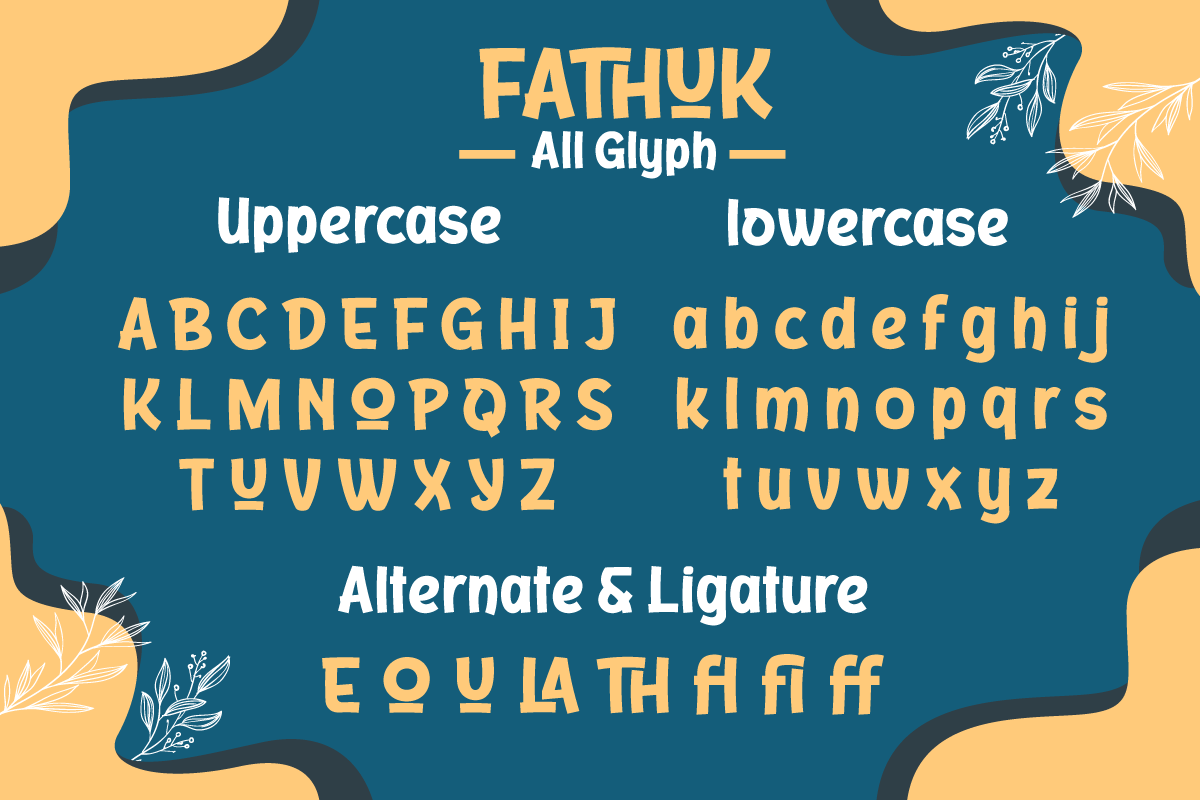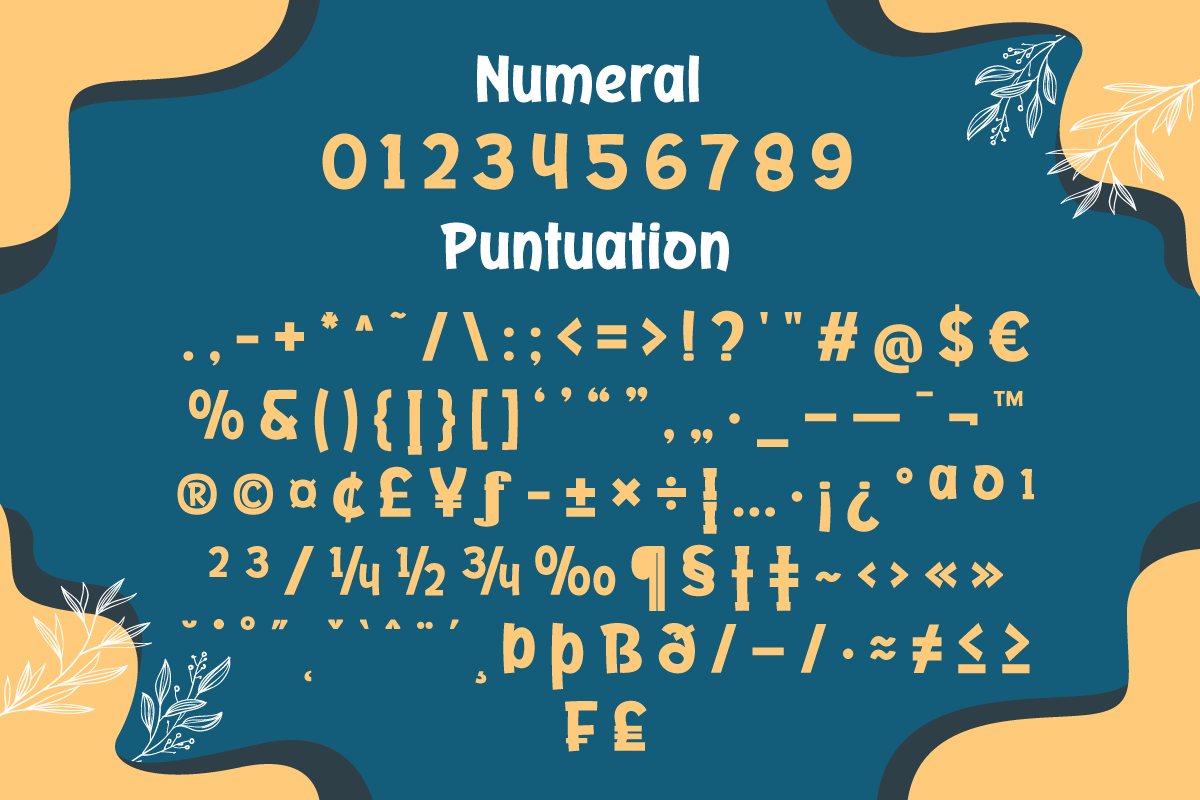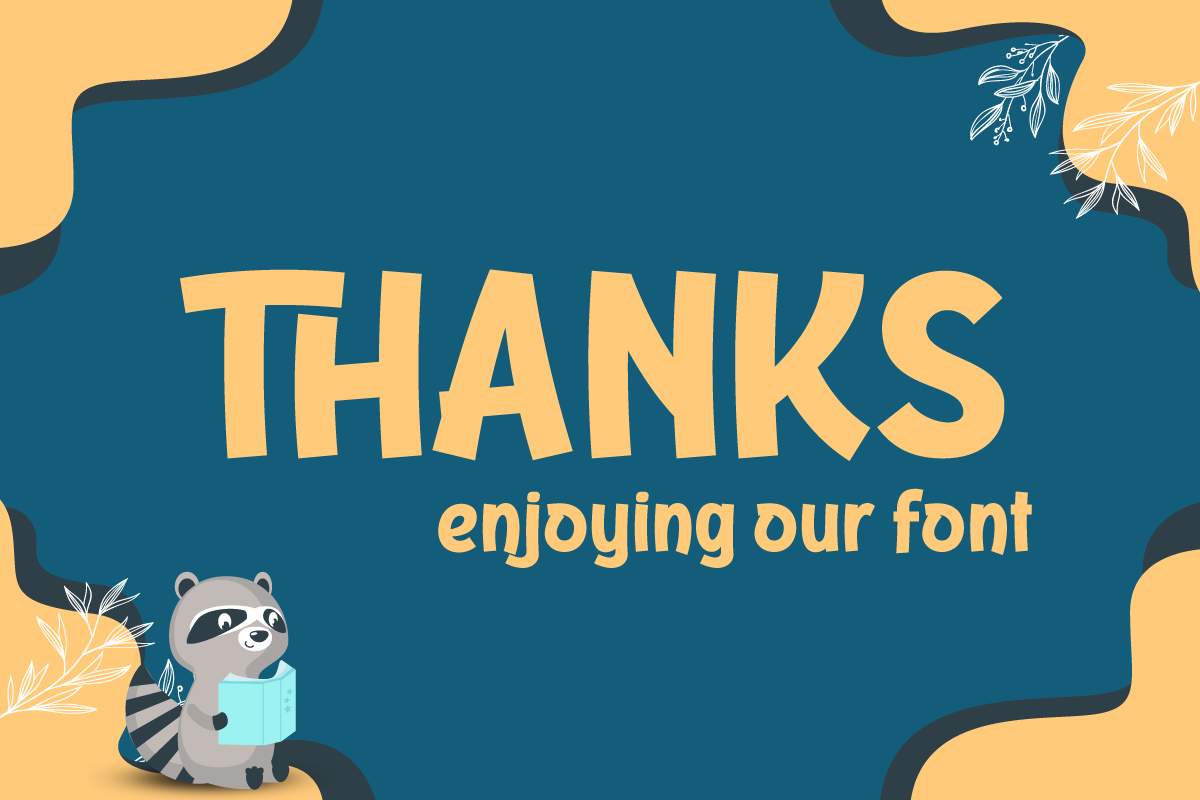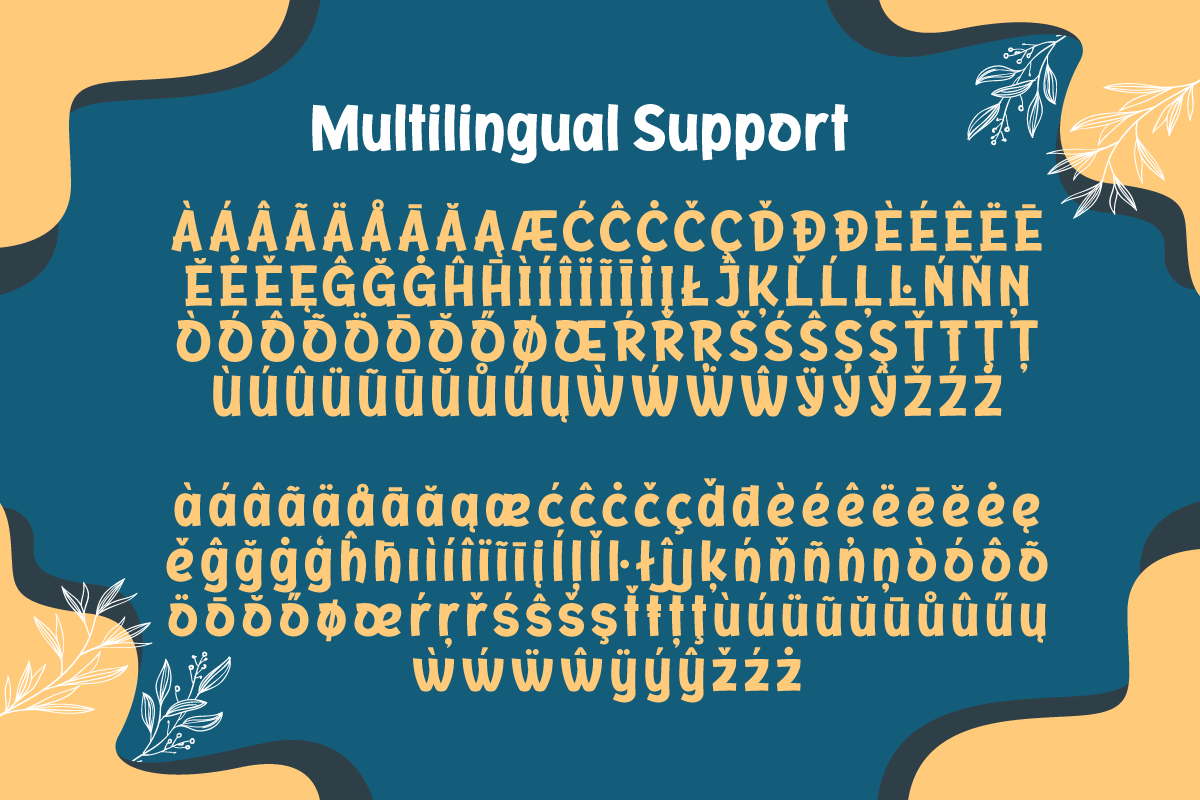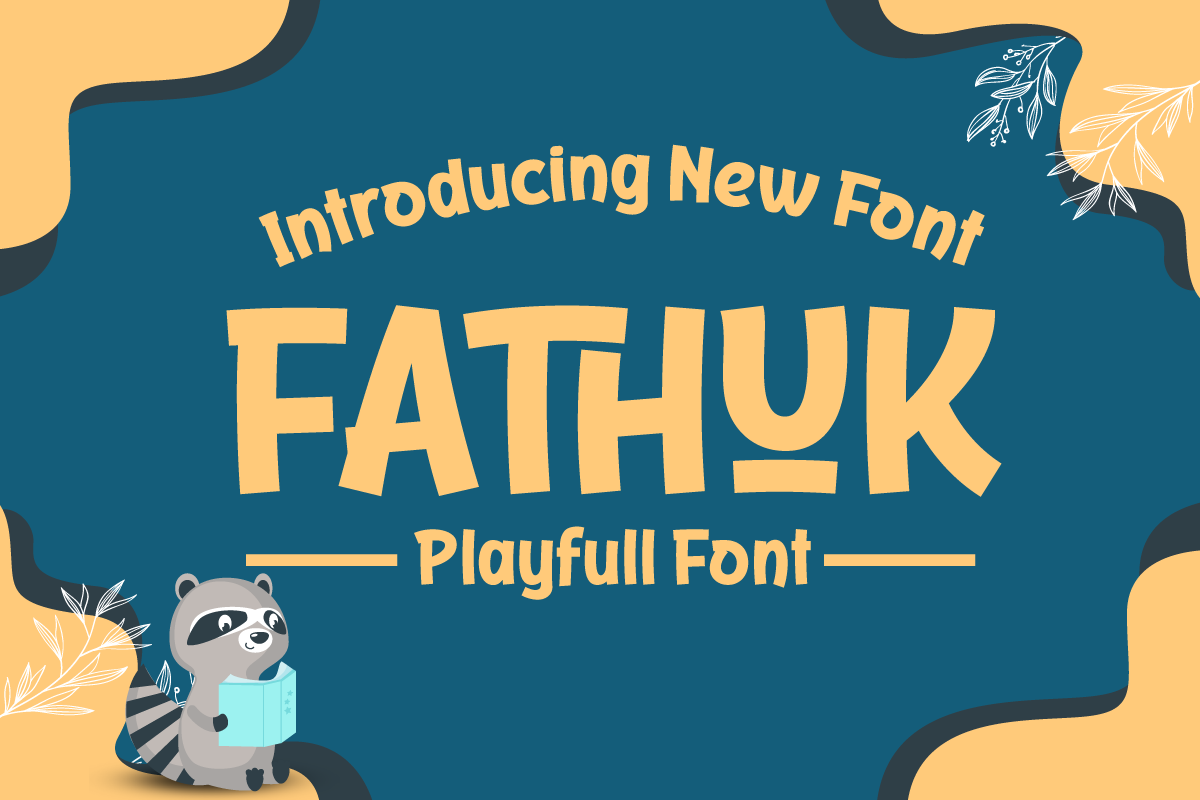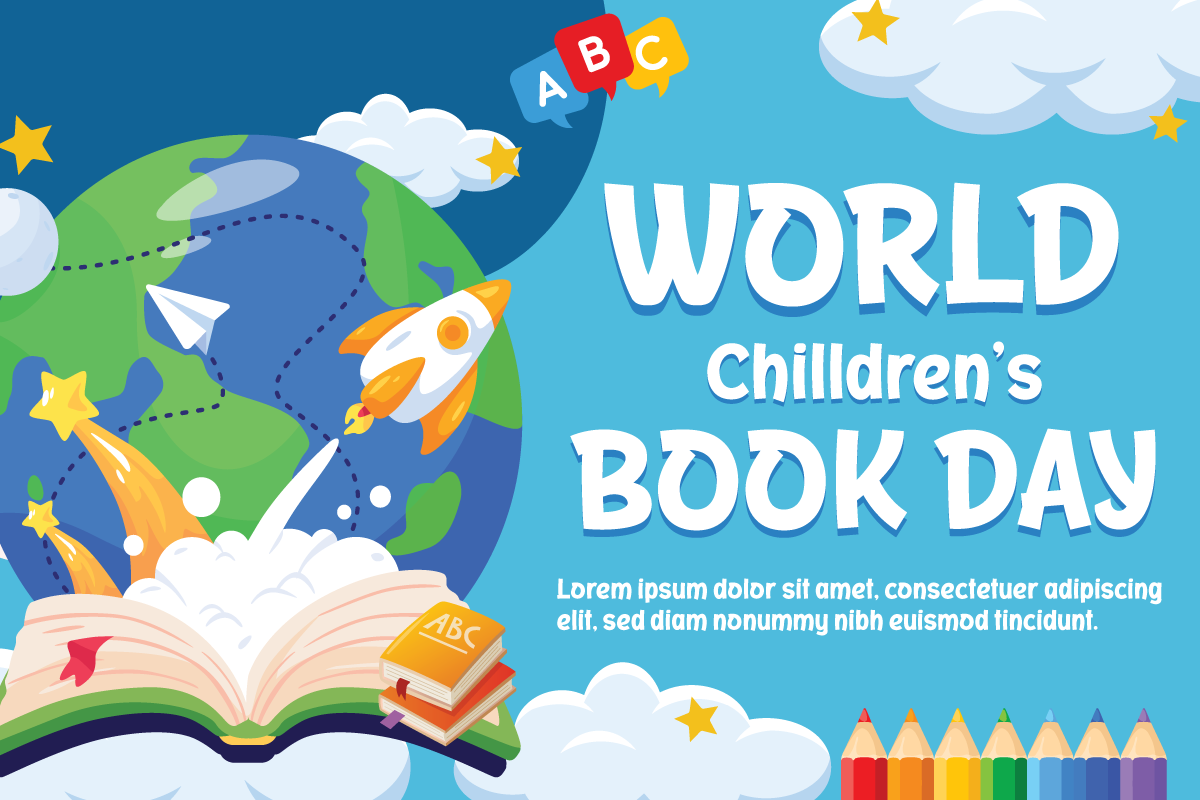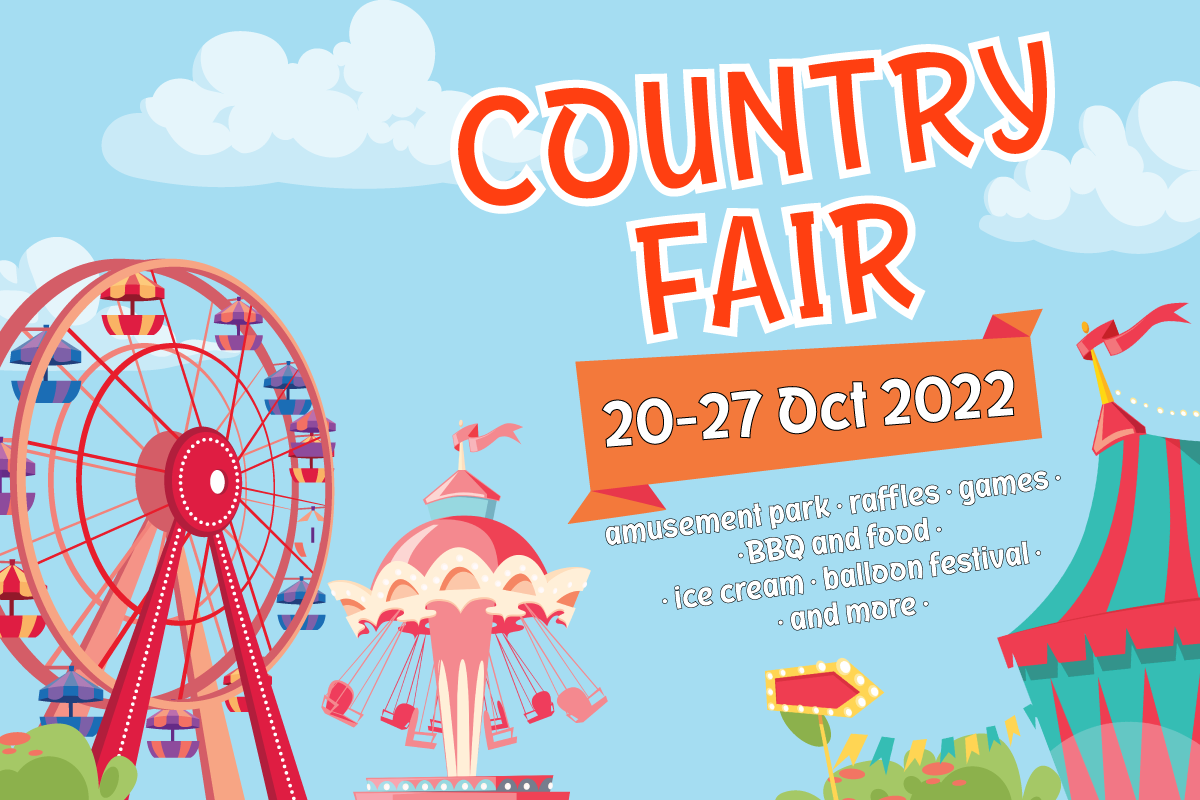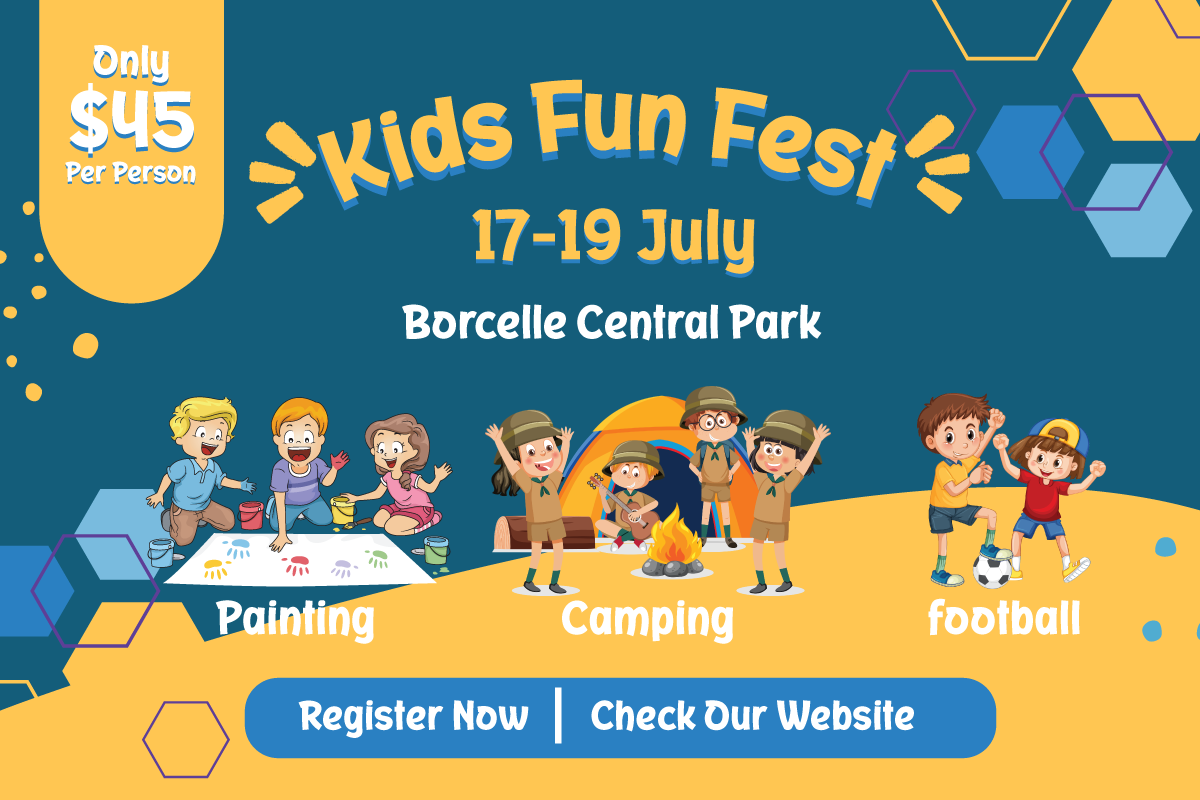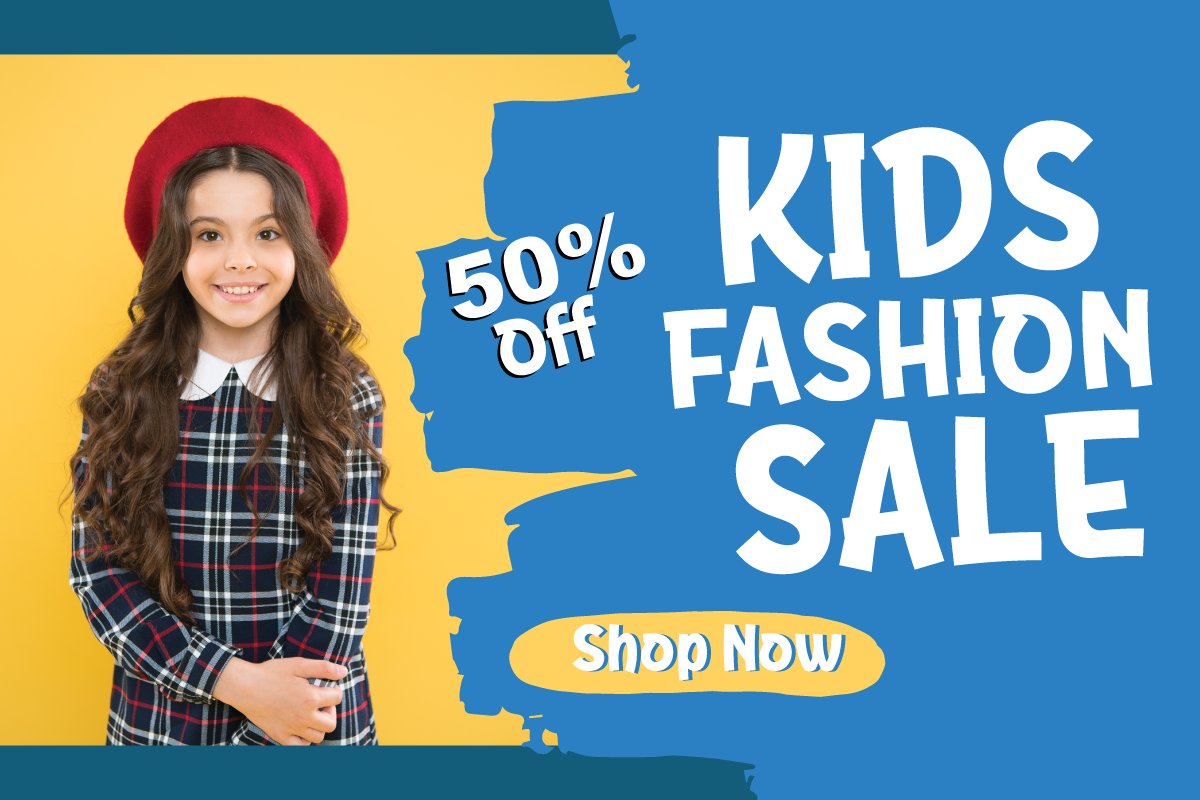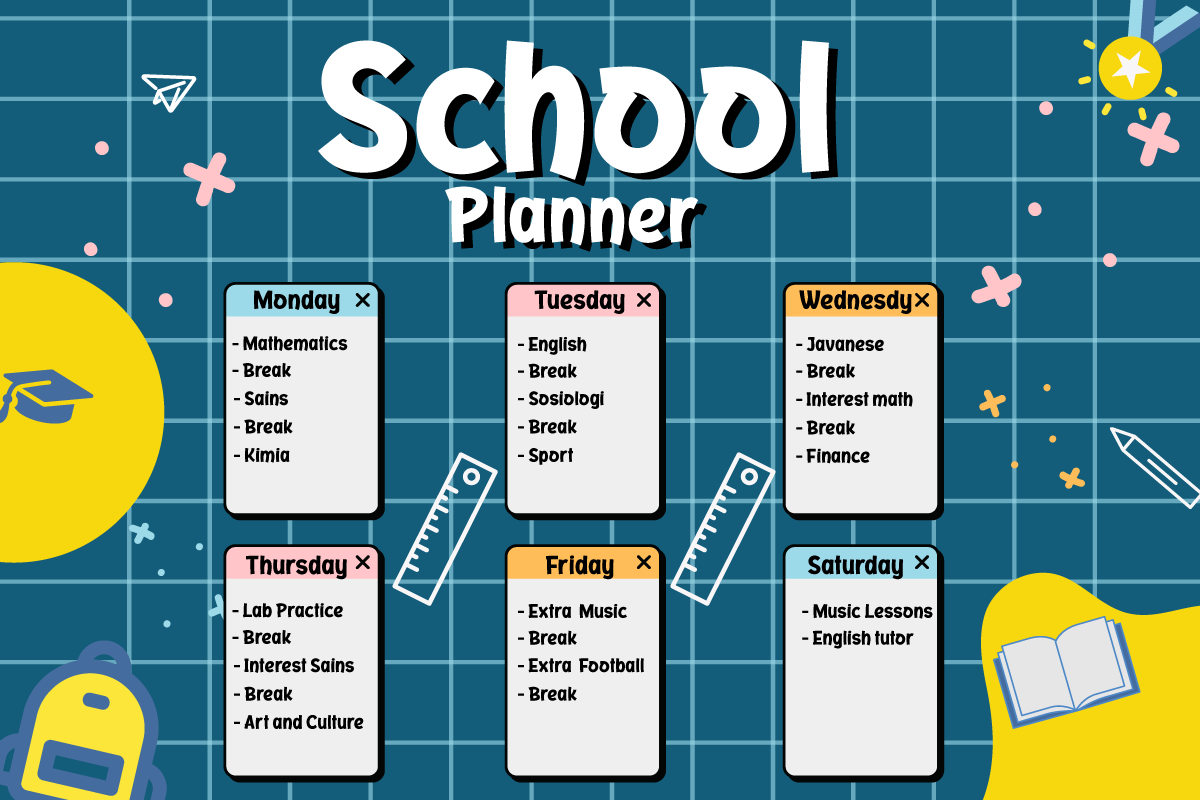
Fathuk | Display Playful Font
Introducing "FATHUK Font" - Where Playfulness Meets Creativity! Unleash your inner creativity with FATHUK Font, a playful display font designed to ignite your imagination.
FATHUK Font adds a whimsical touch to your projects, making it perfect for playful and imaginative designs. Whether you're working on children's books, fun posters, or quirky branding, this font brings an element of joy and creativity to your work. Crafted with precision, FATHUK Font's unique style is sure to capture attention. Its playful and charming appearance invites readers to engage with your content and sparks curiosity.
With FATHUK Font, the possibilities are endless. Use it to infuse a sense of fun into your designs, and watch as your projects come to life with personality and flair. No matter the creative endeavor, FATHUK Font is your go-to choice for adding a playful twist to your work. Embrace the spirit of creativity, and let FATHUK Font elevate your designs to new heights.
- Alternate, Ligature